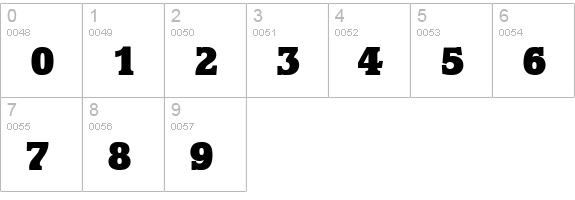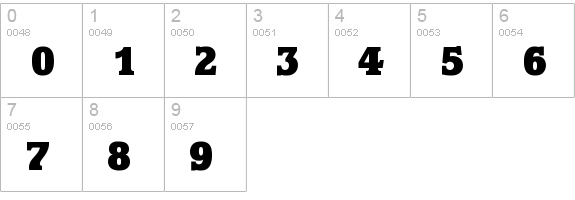
Marbrook Bold Font Details
Marbrook Bold is a strong, high-contrast variant in the Marbrook typeface family \xE2\x80\x94 well suited to headlines, attention-grabbing titles, and strong calls-to-action.
Introducing Marbrook Bold, a captivating and versatile typeface designed to make a bold statement with its commanding presence. This font exudes confidence and strength, making it perfect for headlines, titles, and any design project that requires a touch of elegance and power. Marbrook Bold features clean and sharp lines that create a sense of modern sophistication, while its bold weight adds a sense of authority and impact. The carefully crafted letterforms are imbued with a timeless appeal, making this font suitable for both contemporary and classic designs. With its wide range of characters and extensive language support, Marbrook Bold offers flexibility and versatility, allowing you to create stunning designs in various languages and scripts. Whether you need to convey a sense of luxury, professionalism, or creativity, this font has got you covered. But what makes Marbrook Bold even more remarkable is the fact that it is freely available to download at FontsMarket.com. Yes, you read that right! This exceptional font can be yours without any cost, enabling you to elevate your designs without breaking the bank. So why wait? Download Marbrook Bold now and unlock the potential to create eye-catching designs that leave a lasting impression. Get ready to make a bold statement and captivate your audience with this remarkable font.